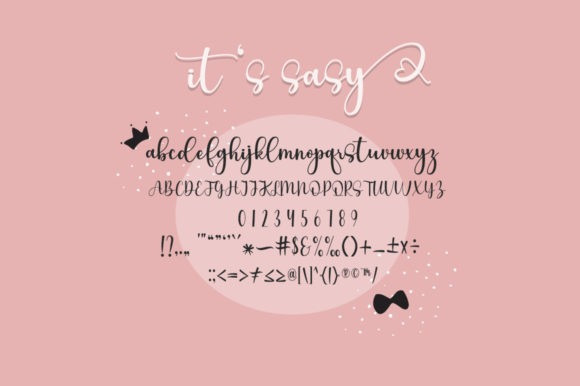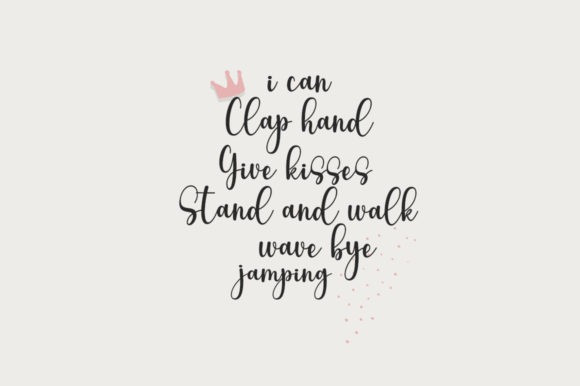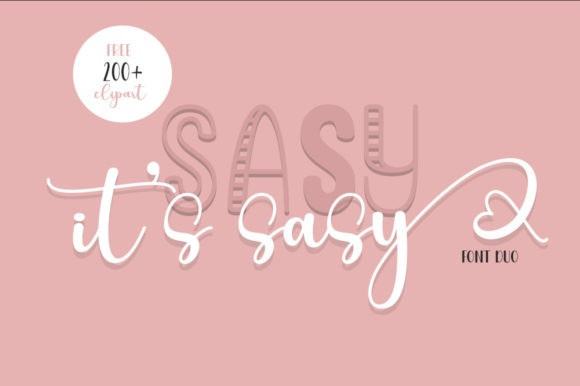
Its Sasy Font
It’s Sassy Font is a lovely duo font (script and display). This font is PUA encoded which means you can access all of the glyphs and swashes with ease! Together or separately, these two fonts will enrich your library!